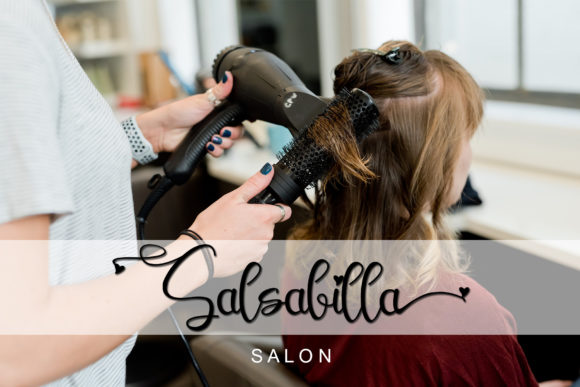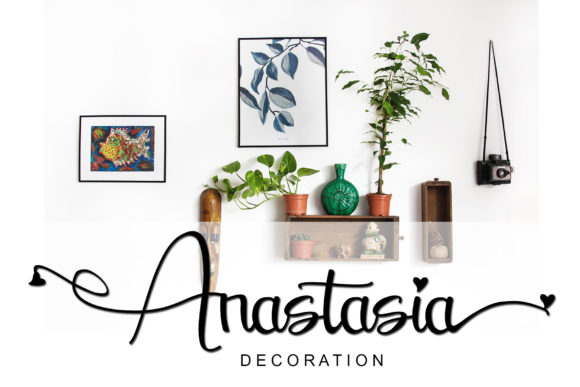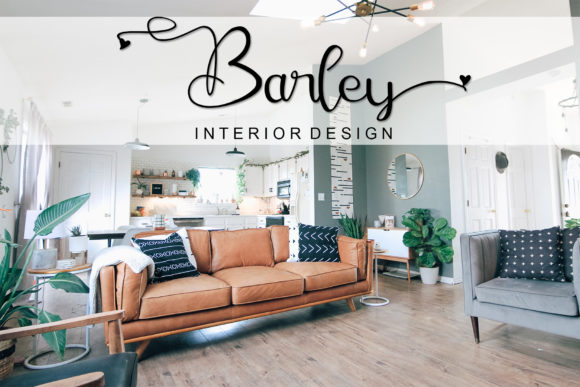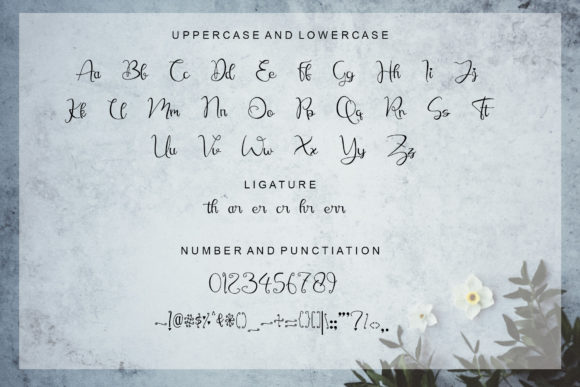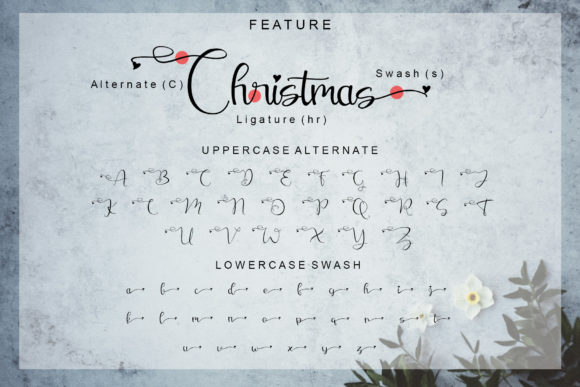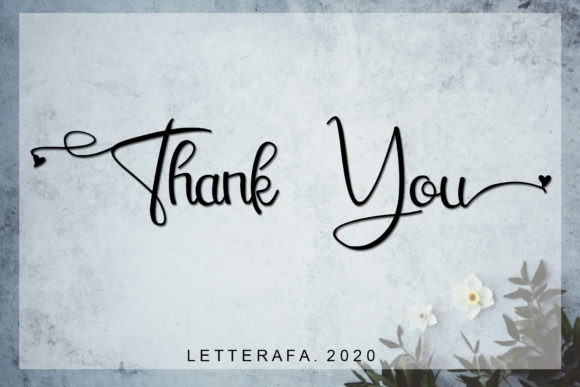
Christmas Winter Font
About Christmas Winter Font
Christmas Winter is a romantic and graceful calligraphy typeface that adds a touch of elegance and charm to your designs. With its dancing baseline and flowing characters, Christmas Winter captures the spirit of the holiday season and brings a sense of warmth and joy to your projects. Whether you’re creating logos, designing wedding invitations, or working on other creative endeavors, Christmas Winter offers versatility and style.
The unique feature of Christmas Winter lies in its carefully crafted characters that gracefully dance along the baseline. This creates a beautiful and harmonious flow to your text, reminiscent of handwritten calligraphy. Each letter is elegantly designed with intricate details, giving your designs a sophisticated and festive touch.
Christmas Winter is suitable for a wide range of applications. From logos and branding materials to wedding invitations, headings, t-shirts, letterhead, signage, labels, news, posters, badges, and more, Christmas Winter can add a touch of holiday magic to your designs. Its romantic and graceful style evokes the joy and spirit of Christmas, making it perfect for capturing the festive atmosphere in your projects.
With its PUA encoding, Christmas Winter allows you to easily access all the glyphs and swashes, giving you the freedom to customize and embellish your text. You can add flourishes, ligatures, and alternative characters to create unique and eye-catching designs that reflect your personal style and vision.
Christmas Winter supports multiple languages, making it suitable for a global audience. Whether your design requires English, French, Spanish, or any other language, Christmas Winter ensures that your text remains legible and elegant across different languages and writing systems.
In summary, Christmas Winter is a romantic and graceful calligraphy typeface that brings the spirit of the holiday season to your designs. With its dancing baseline, extensive glyphs and swashes, and support for multiple languages, Christmas Winter offers endless creative possibilities. Whether you’re working on logos, wedding invitations, or other projects, let Christmas Winter add a touch of holiday magic to your designs.